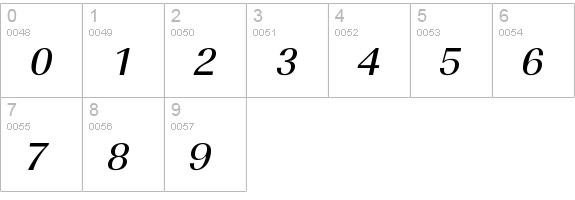
URWImperialTOTMedWid Oblique Font Details
URWImperialTOTMedWid Oblique is a distinctive, italic variant in the URWImperialTOTMedWid typeface family \xE2\x80\x94 well suited to design and typography projects.
URWImperialTOTMedWid Oblique font is a stylish and versatile typeface that exudes elegance and sophistication. With its unique oblique design, this font is perfect for adding a touch of modernity to any project. Whether you are designing a logo, creating branding materials, or crafting eye-catching titles, URWImperialTOTMedWid Oblique font is sure to make a statement. The clean lines and sleek curves of this font give it a contemporary feel, while its wide structure adds a sense of stability and presence. URWImperialTOTMedWid Oblique font strikes the perfect balance between boldness and sophistication, making it suitable for a wide range of design applications. Best of all, URWImperialTOTMedWid Oblique font is available for free download at FontsMarket.com. This means you can easily access this stunning typeface and enhance your designs without any cost. Don't miss out on the opportunity to elevate your projects with the timeless appeal of URWImperialTOTMedWid Oblique font. Download it today and start creating beautiful designs effortlessly.